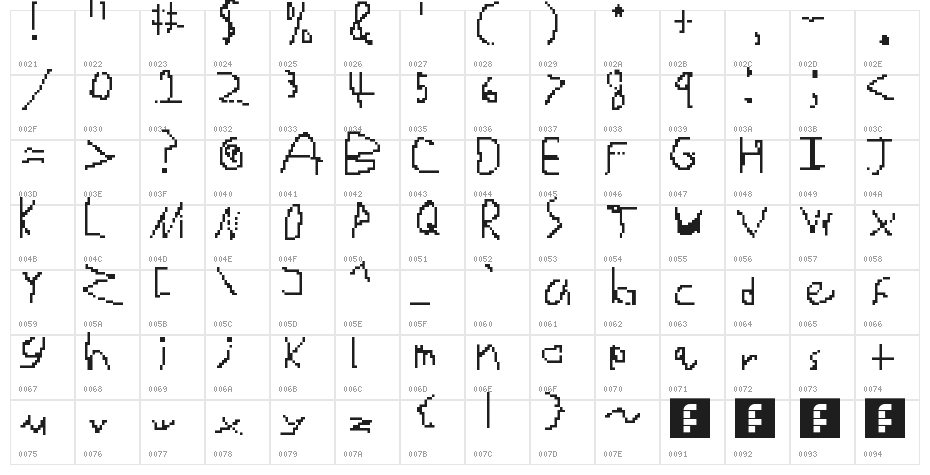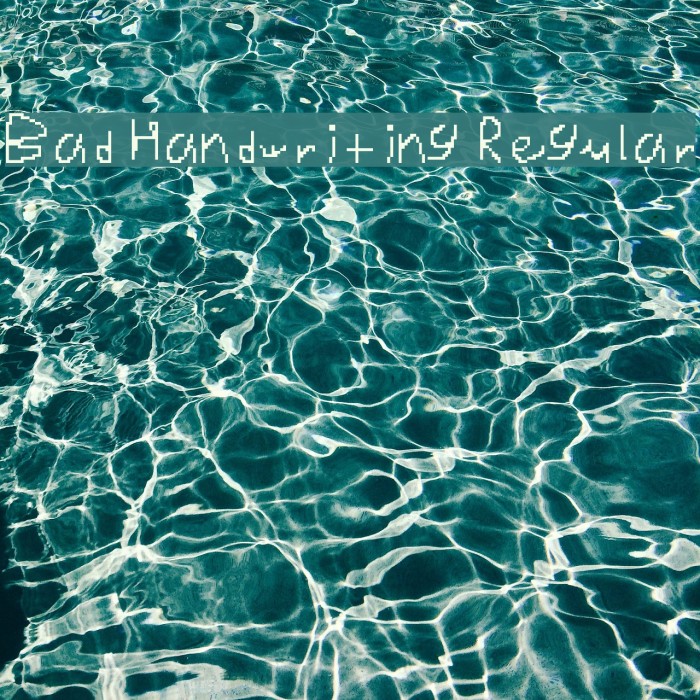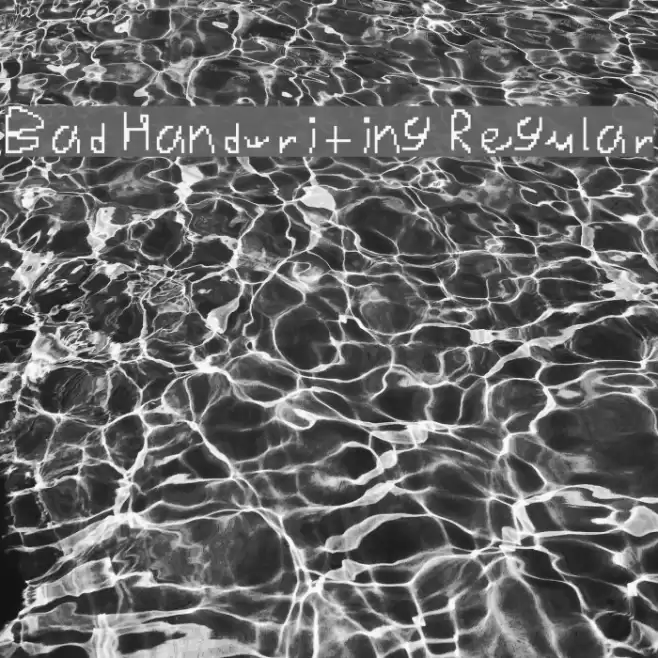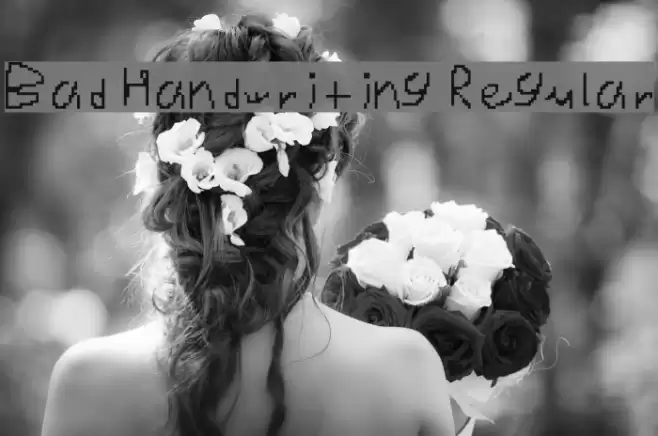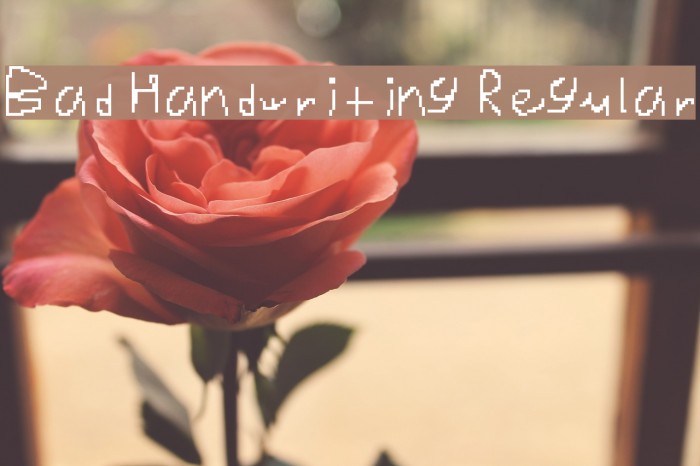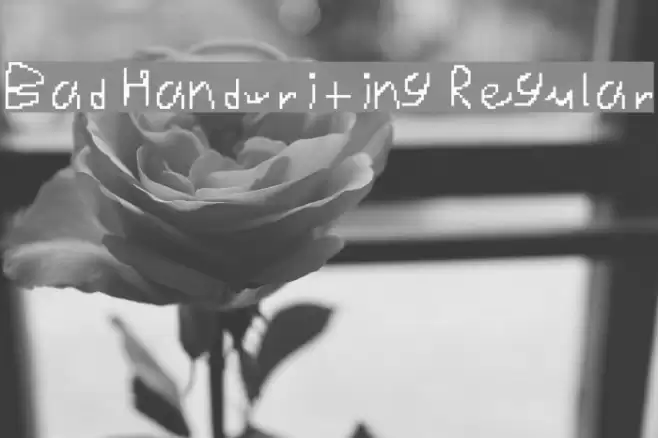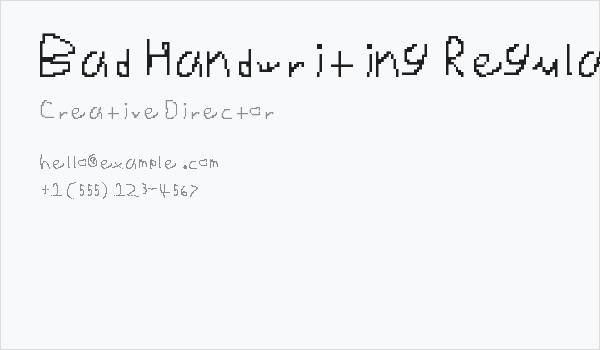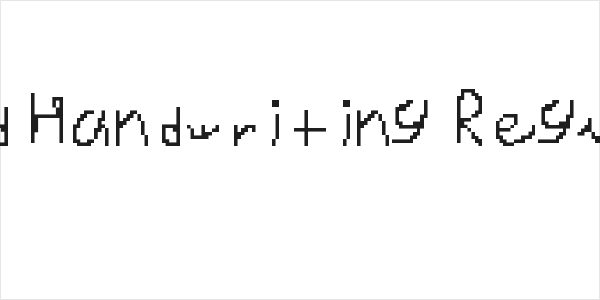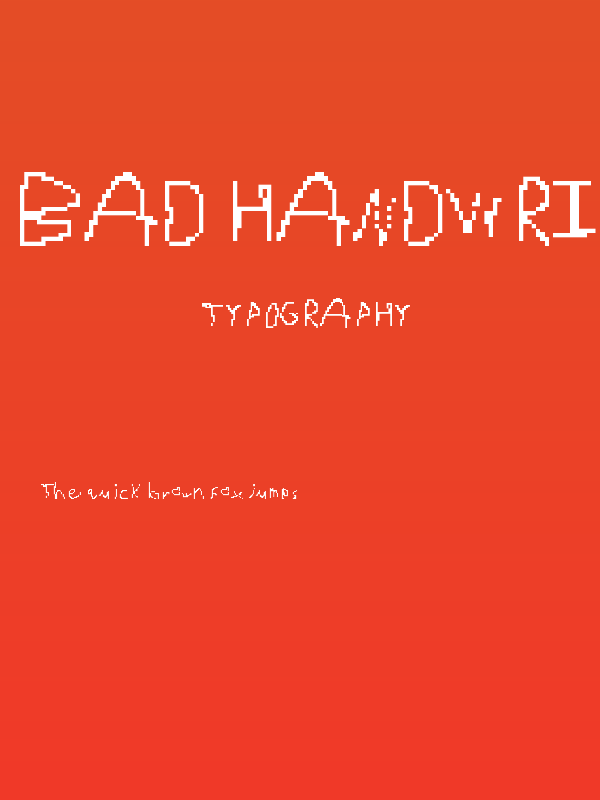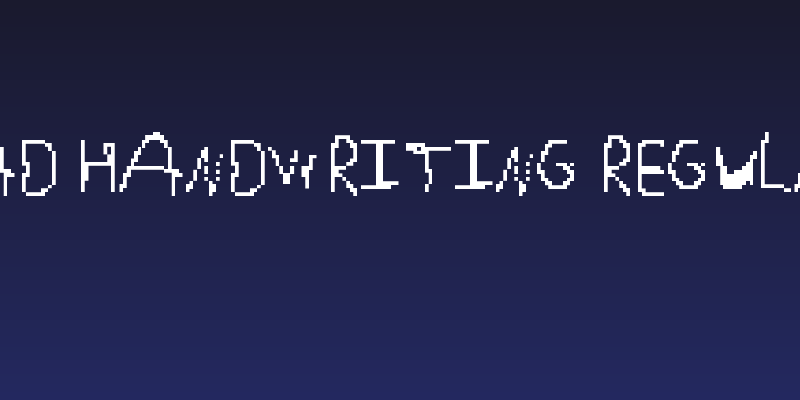
Bad Handwriting Regular Font
Bad Handwriting Regular Description
This font features a playful and irregular style that mimics the appearance of hastily written handwriting. The characters are unevenly shaped, with varying line thickness and a casual, informal look. The uppercase letters are bold and slightly larger than the lowercase, which are more compact and closely spaced. Numbers and special characters maintain the same quirky and spontaneous feel, adding to the overall charm. The font's unique style makes it stand out, offering a sense of individuality and creativity.
| Use Case | Logos, Headlines, Informal text |
| Proposed Projects | Ideal for creative projects such as greeting cards, children's books, informal invitations, and artistic posters. |